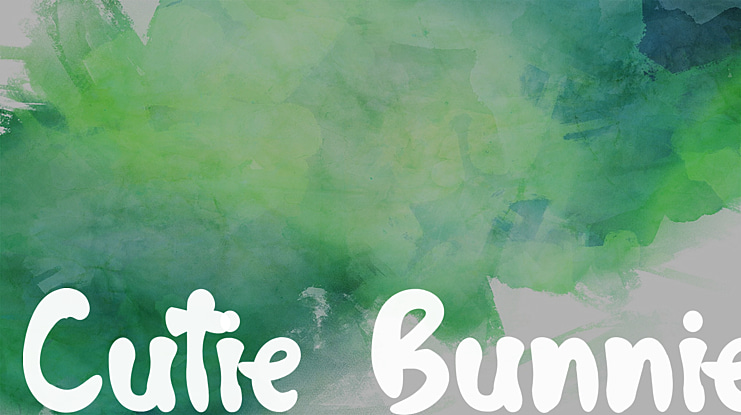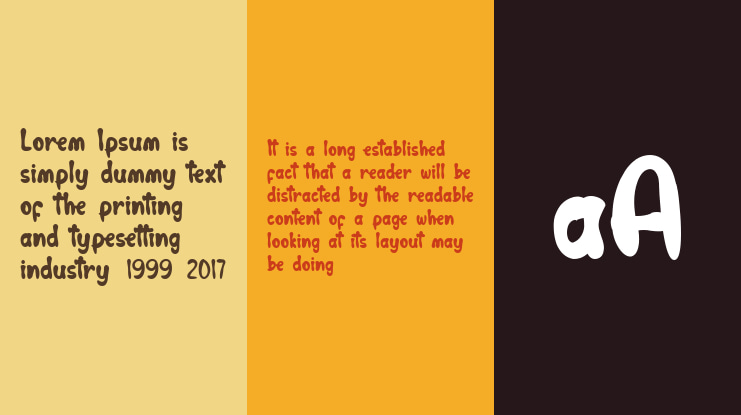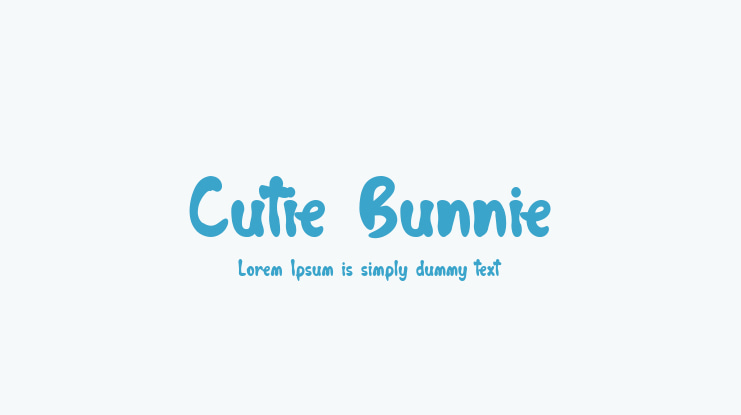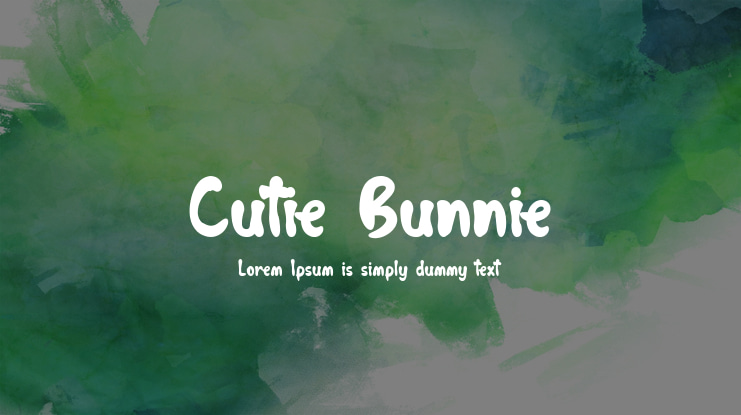
Cutie Bunnie Font
This enchanting font will turn any creative idea into a true standout. Perfect fit for all of your logos, branding, social media, etc. Get creative with its unique playfulness, and use it to brighten up any crafting project! Please note that this demo font is for personal use only.!! If you want to use this font for commercial use, you need to purchase a commercial license here: https://www.creativefabrica.com/designer/dmletter31/ref/161900/
Cutie Bunnie font preview